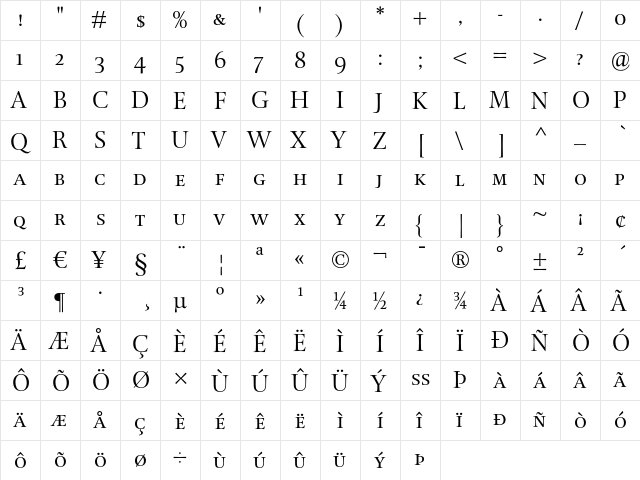
Mentor Light SC
Design Context for Mentor Typeface
Mentor takes a measured approach to typography — its balanced proportions and neutral character make it a reliable workhorse for both digital and print work. The delicate stroke weight brings airiness and refinement to layouts.
Pro Tip: Pair Mentor with a font of contrasting weight or personality to build a more expressive typographic hierarchy.